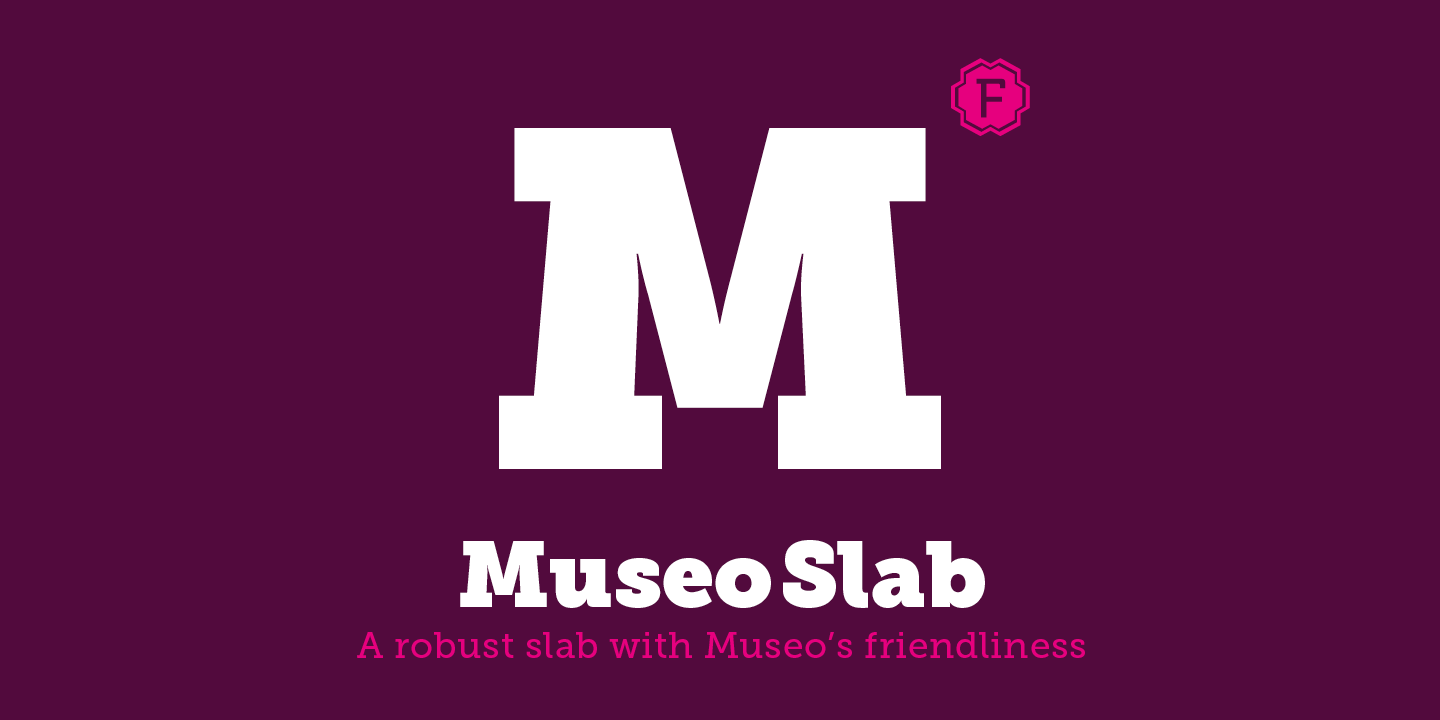
Elevate your designs with Museo Slab Font Free Download, the acclaimed typeface that masterfully blends geometric precision with humanist warmth. Developed by renowned designer Jos Buivenga, this contemporary slab serif delivers exceptional readability and distinctive character for both digital and print applications.
Why Designers Love Museo Slab
1. Perfect Hybrid Design
Geometric structure meets organic curves
Optimized stroke contrast for screen readability
Recognizable personality without sacrificing clarity
2. Unmatched Versatility
Web headers and UI elements
Textbook and educational materials
Infographics and data visualization
Corporate branding systems
Editorial design
3. Technical Excellence
Multiple weights from 100 to 900
True italics for each weight
Extensive language support
Perfect for @2x retina displays
Professional Applications
Museo Slab Font Free Download excels in:
Tech company branding
Annual reports
Mobile app interfaces
Academic publications
Packaging design
Designer Tip: Use rounded 500 weight for friendly professionalism, 900 for bold statements.
Museo Slab Font Free Download - The gold standard in approachable yet professional slab serifs!
Includes fractions and scientific numerals
Excellent for wayfinding systems
Perfect readability at small sizes
Pro Pairing: Combine with Museo Sans for harmonious brand typography that scales across all media.
Why It Stands Out: Unlike cold geometric slabs, Museo Slab maintains warmth and approachability while delivering clean, modern aesthetics. This makes it perfect for brands that want to appear professional yet human.